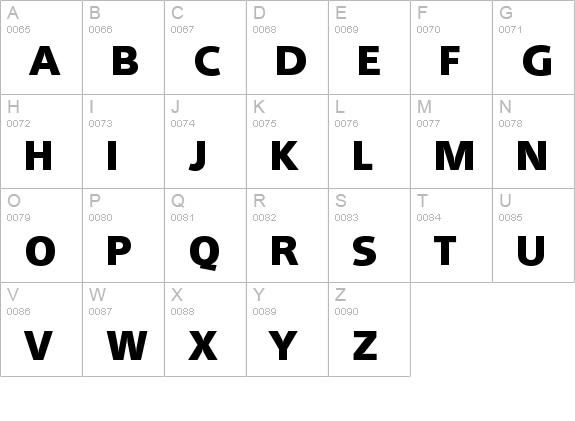
Quebec-Heavy is a heavy, high-impact variant in the Quebec typeface family \xE2\x80\x94 well suited to high-impact headlines, posters, and display advertising.
Introducing Quebec-Heavy, a striking and bold font that exudes strength and confidence. This versatile typeface commands attention with its robust and powerful letterforms, making it ideal for headlines, logos, and any design project that requires a strong visual impact. Quebec-Heavy is characterized by its thick and substantial strokes, emphasizing a sense of solidity and authority. Its sharp lines and distinct angles create a modern and edgy aesthetic, giving your designs a contemporary edge. This font effortlessly combines elegance and strength, making it a perfect choice for both corporate and creative applications. The beauty of Quebec-Heavy lies in its versatility. Whether you're designing a magazine cover, branding materials, or a website, this font will catch the eye and leave a lasting impression. Its legibility ensures that your message is conveyed clearly, while its unique personality adds an extra layer of visual interest. As an added bonus, Quebec-Heavy is freely available to download at FontsMarket.com. This means that you can bring this impactful font into your design arsenal without breaking the bank. With just a few clicks, you can access the power and style of Quebec-Heavy, allowing you to create stunning designs that stand out from the crowd. Don't miss out on the opportunity to enhance your design projects with Quebec-Heavy. Download this remarkable font today and unleash its potential to elevate your designs to new heights.